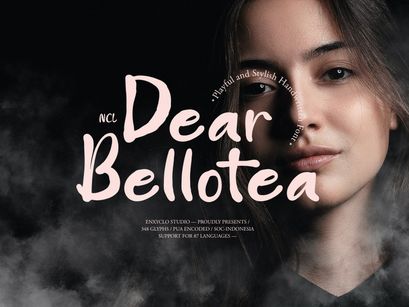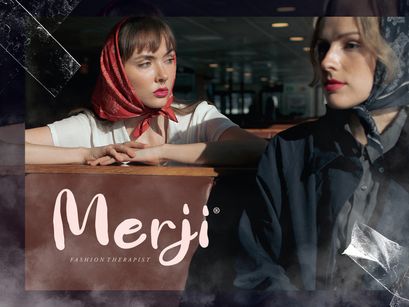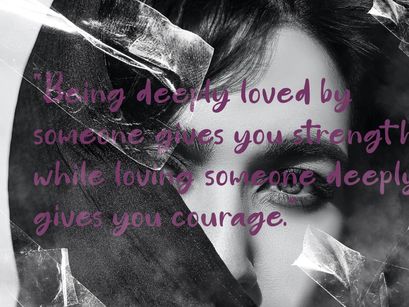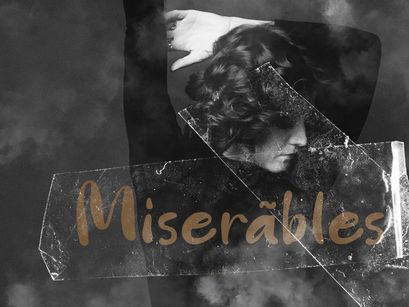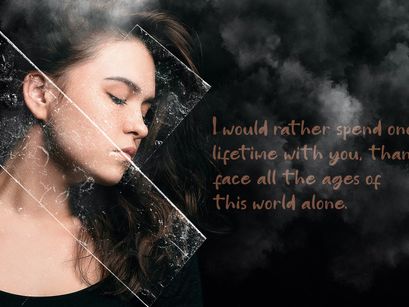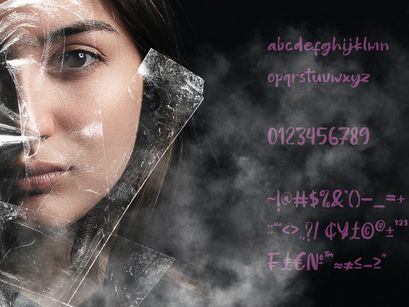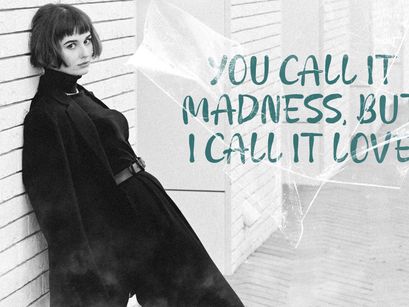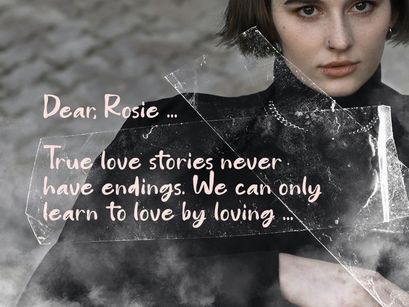
NCL DEAR BELLOTEA is a unique handwritten font. It's stylish and modern-classic display font inspired by pop cultures and urban culture. Masterfully designed to become a true favorite, this font has the potential to bring each of your creative ideas to the highest level! It was purposely crafted to be used in large point sizes, although it doesn’t lose its magic in small point sizes. It is perfect for headline, billboard, magazines, website, titles, poster, branding, t-shirt design, and logos. No matter the topic, this font will be an incredible asset to your fonts’ library, as it has the potential to elevate any creation. With this beautiful font, absolutely you can make your project stand out from the rest. See the previews above to get some inspiration on how to use them.
- Uppercase, Lowercase & Numeral
- Punctuation, Symbol & Currencies